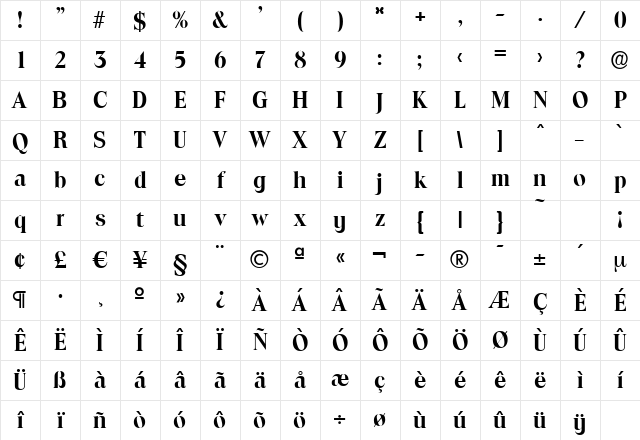
RalphBecker Bold
Design Context for RalphBecker
RalphBecker is a composed and adaptable typeface that performs quietly and consistently across a wide range of design contexts. Its bold stroke weight gives it real presence on the page.